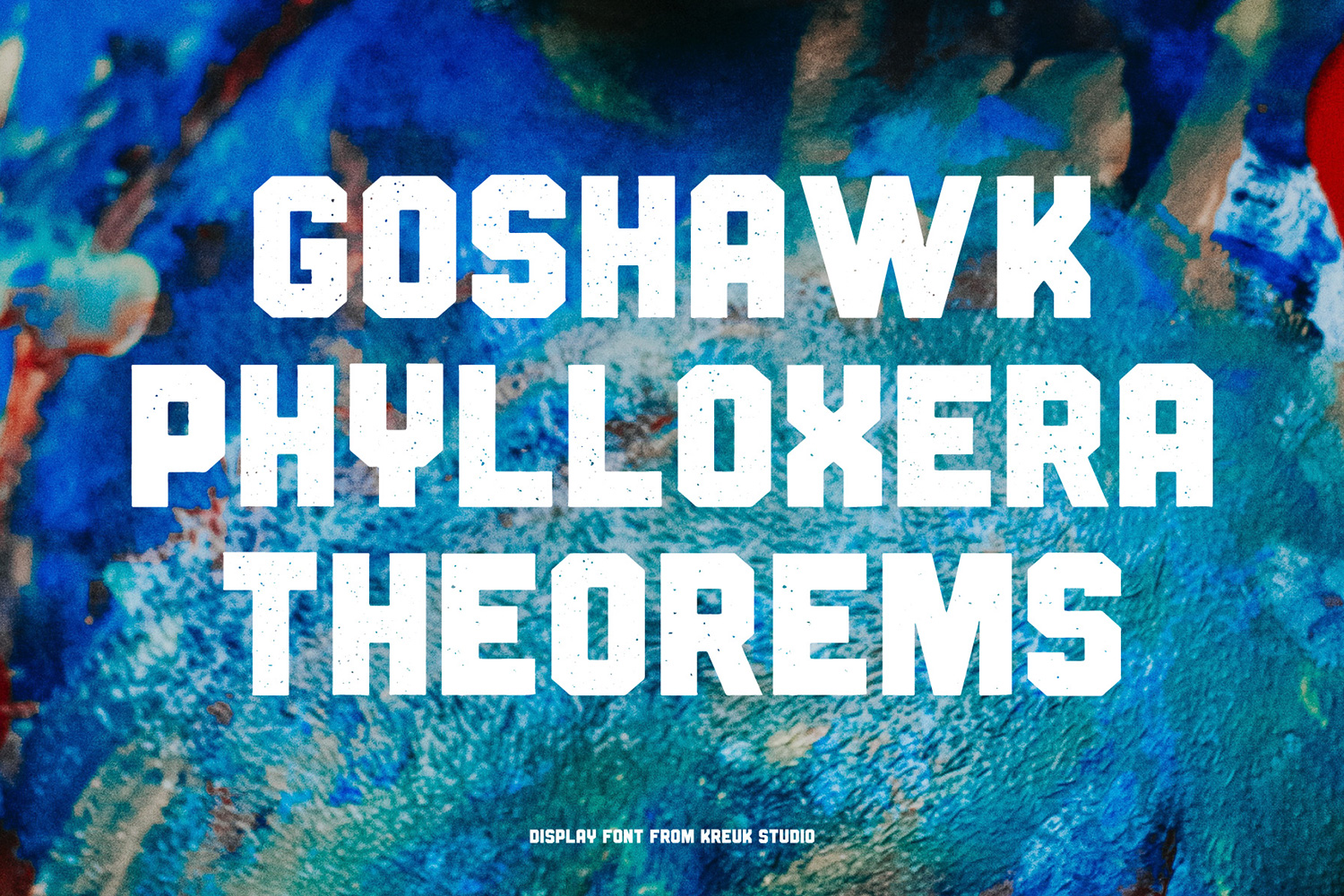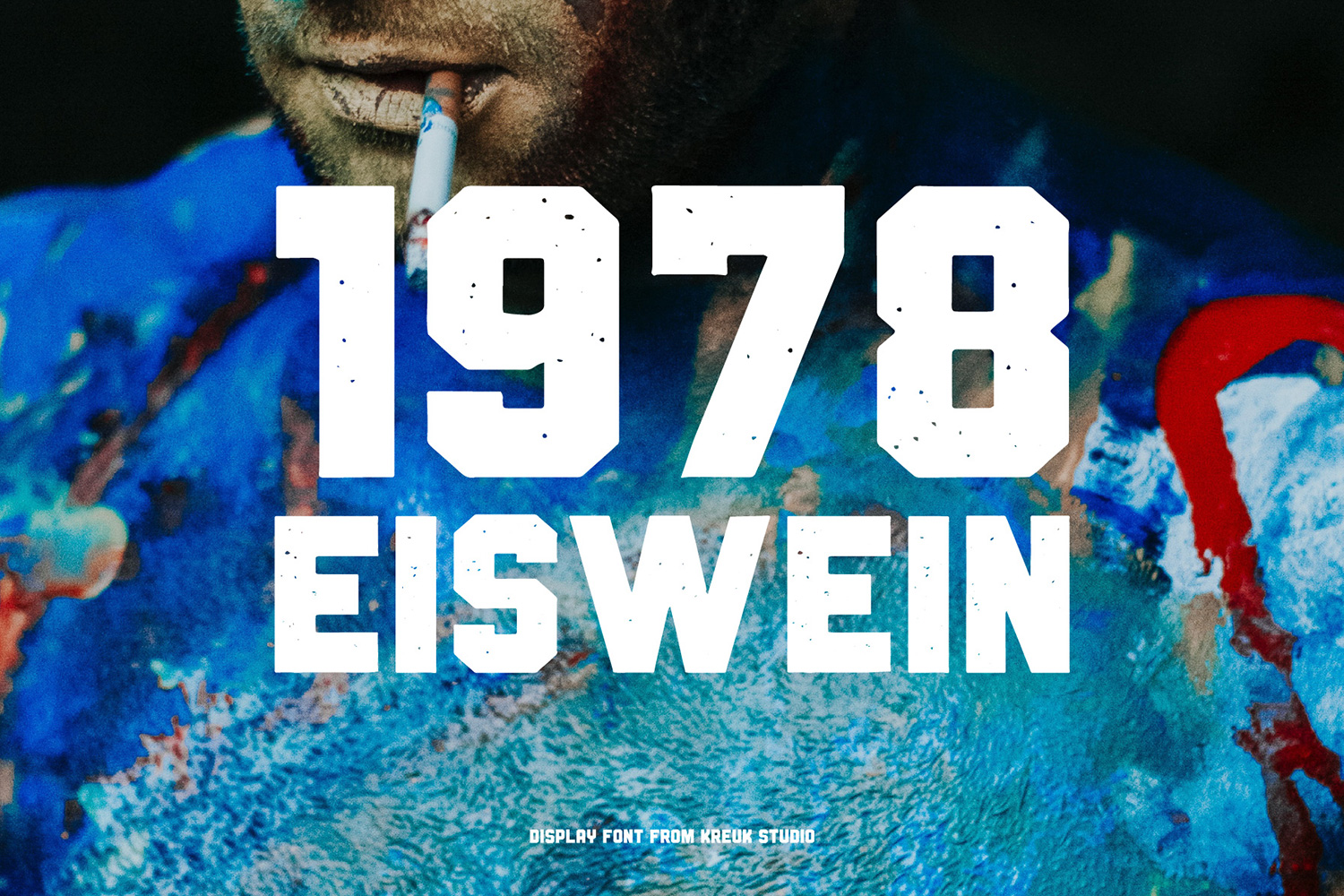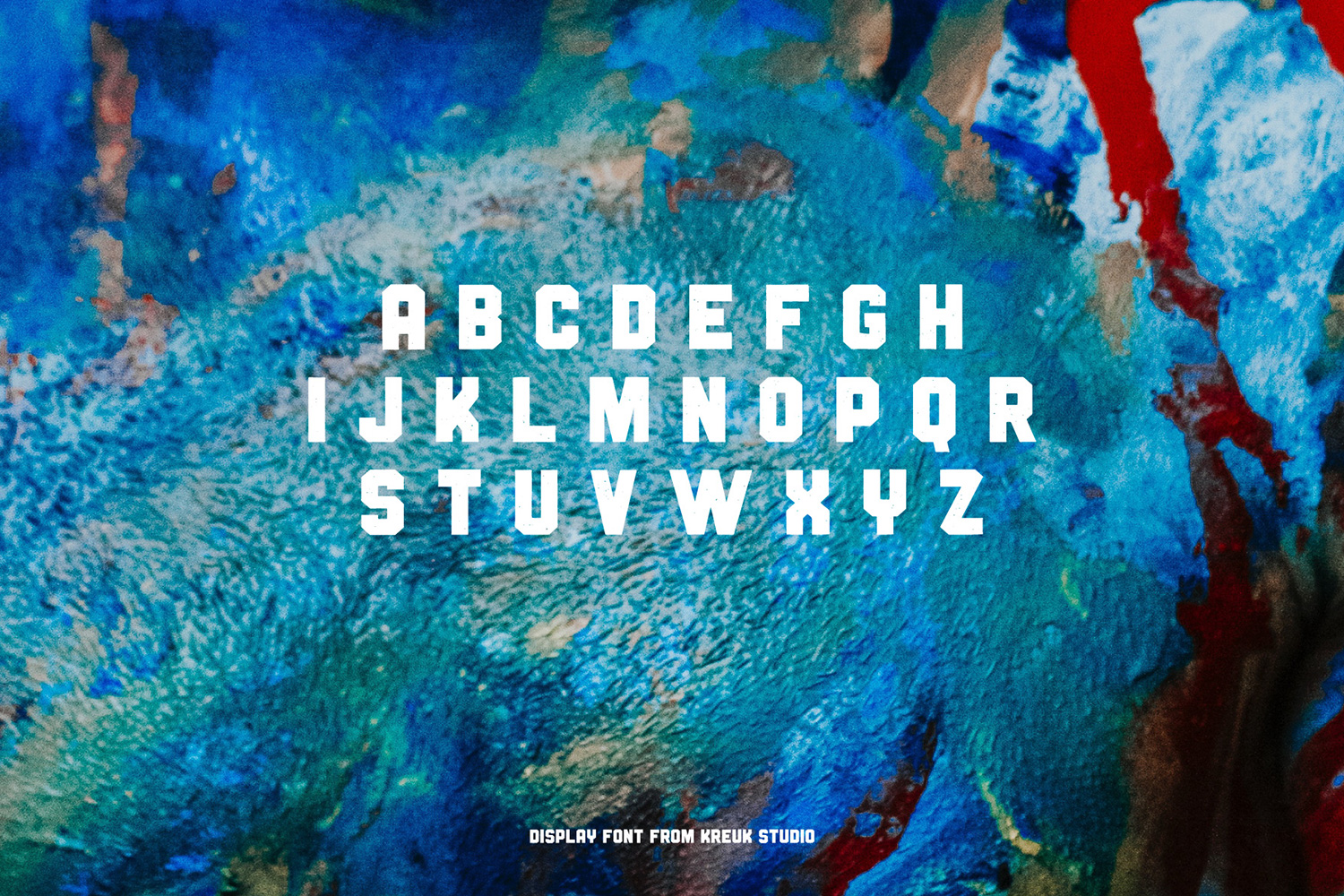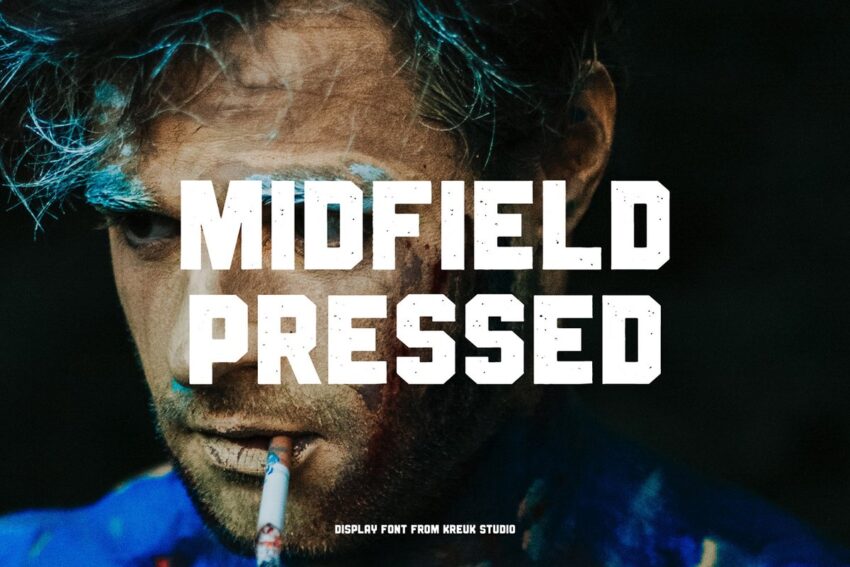
Introduction to Midfield Pressed Font
Midfield Pressed is a beautiful and bold font, ideal for use in displays.
This font is neutral enough to be used in fancy, feminine designs but also allows itself towards more sports inspired designs .
Key Features of Midfield Pressed Font